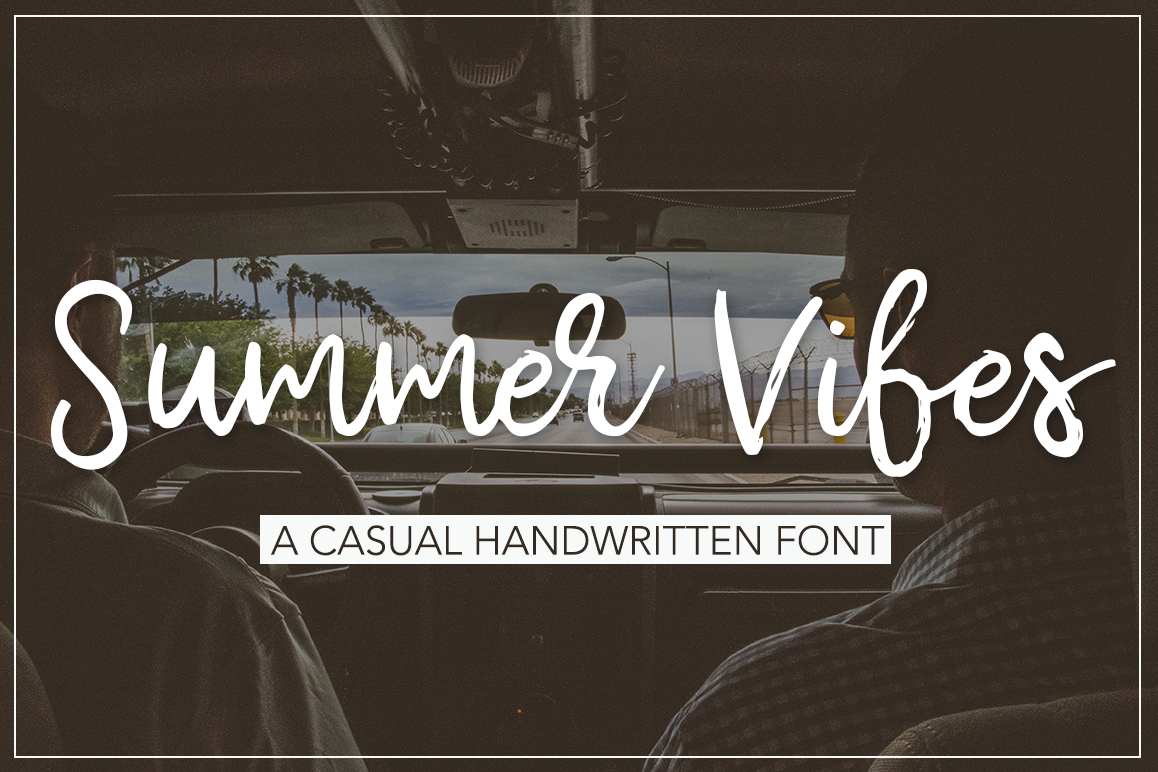
Summer Vibes Script
Introducing a new font, called Summer Vibes!
It's handwritten script. This font is ideal for branding and decorate your any project.This font are perfect for wedding invitation or your blog. Also with their help, you can create a logo or beautiful frame for your home. Or just use for your small business, book covers, stationery, marketing, magazines and more.
Feel the real summer with Summer Vibes!